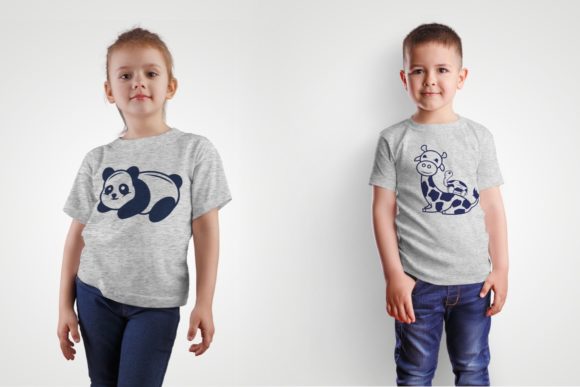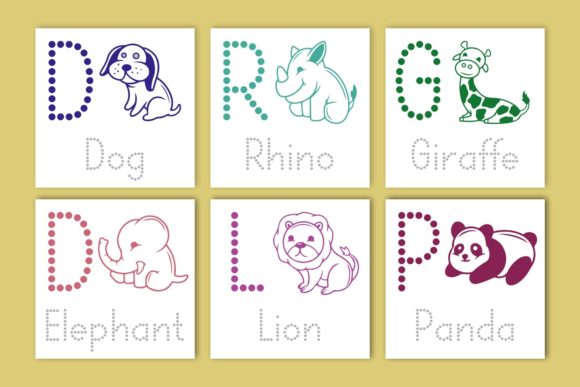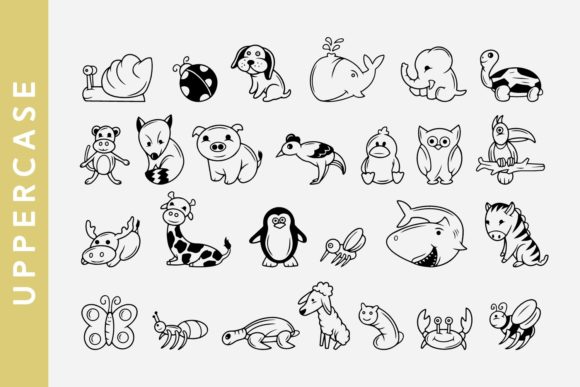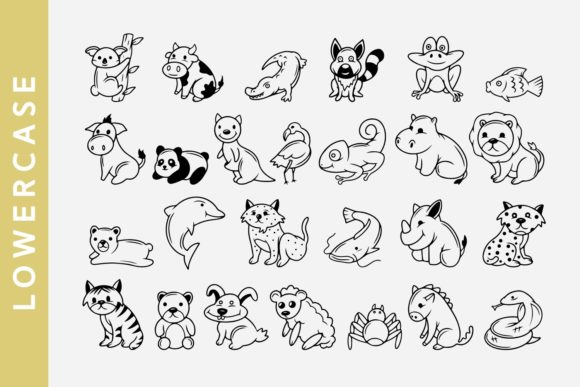
Introduction to Dier Dingbats Font
Dier Dingbats is a font featuring adorable cartoon animals including animals from all over the world.
The font is perfect for kid’s t-shirts, crafts, learning materials, and beyond .